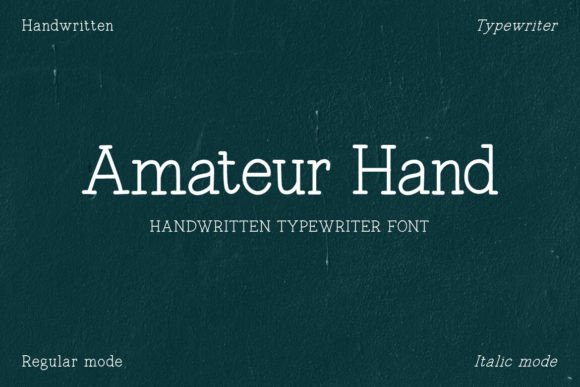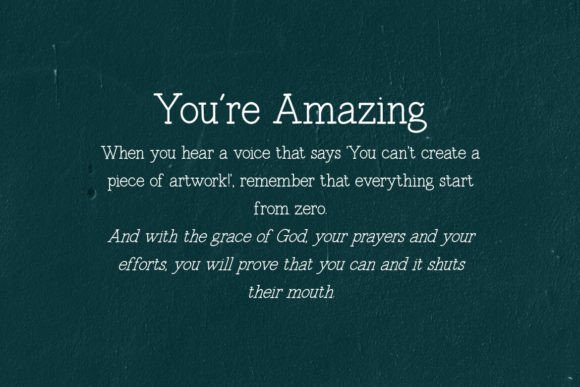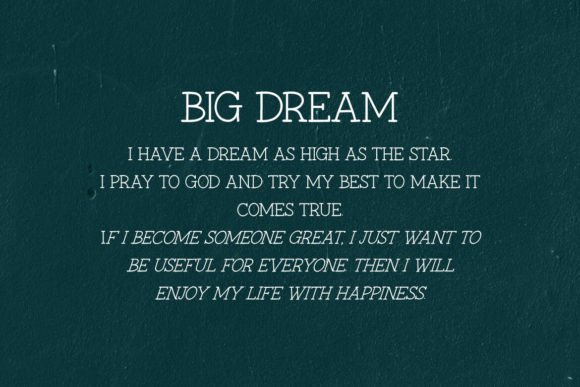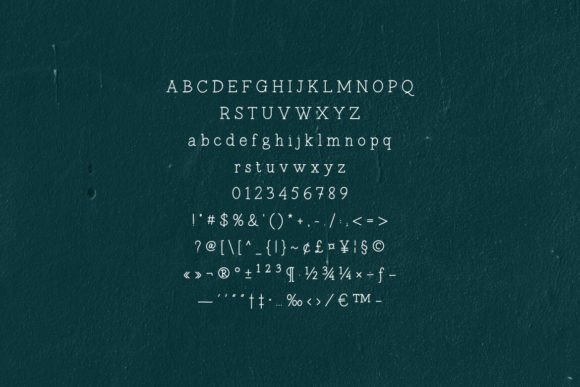
Amateur Hand Font: Nostalgic Handwritten Typewriter Font for DIY Projects
About the Amateur Hand Font
Explore the possibilities with Amateur Hand Font, a font that offers both beauty and functionality. Introducing Amateur Hand, a unique handwritten typewriter font that blends the classic feel of a typewriter with the personal touch of handcrafted script. This font is perfect for designers and creatives looking to add a touch of nostalgia and warmth to their projects.
Amateur Hand excels in projects requiring a vintage yet approachable feel. It works beautifully for short headlines, logos, and packaging designs where its handcrafted charm adds personality. Consider it for branding projects targeting a younger demographic or those emphasizing authenticity and handmade quality. Avoid using it for large blocks of body text or UI elements; its informality and varied letter spacing hinder readability in extended use.
Pairing Amateur Hand with a clean sans-serif like Open Sans for body text creates a strong contrast, balancing the handwritten informality with modern clarity. Alternatively, a classic serif like Garamond adds a touch of sophistication, complementing its vintage aesthetic. For a bolder look, consider pairing it with a geometric sans-serif such as Futura.
The font’s personality is best described as friendly and nostalgic, conveying a sense of warmth and approachability without being overly childish or sentimental. It strikes a balance between vintage charm and contemporary appeal.
Amateur Hand Font Usage Examples
Amateur Hand Font Example